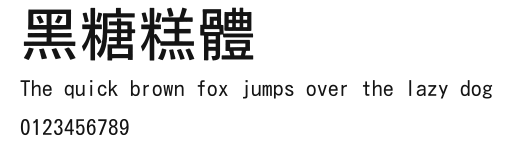
黑糖糕體 Preview
• Font Name: 黑糖糕體
• Font ID: SugarCake:Version 0.8
• Full Font Name: SugarCake
• Version: Version 0.8
• PostScript Name: SugarCake-Regular
• Character Count: 11992
About 黑糖糕體.ttf
黑糖糕體.ttf is a modern, elegant sans-serif font designed for ultimate readability and visual harmony. Perfect for branding, headlines, web design, and print materials.